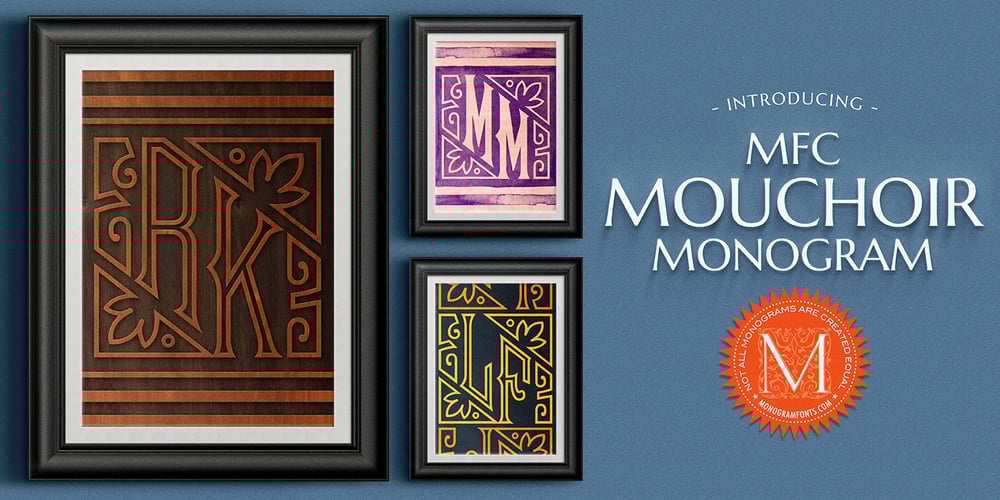
MFC Mouchoir Monogram
MFC Mouchoir Monogram font
MFC Mouchoir Monogram Font Family was designed by Brian J. Bonislawsky and published by Monogram Fonts Co.. MFC Mouchoir Monogram contains 18 styles and family package options. The inspiration source for Mouchoir Monogram is an ornament framed letterstyle from a vintage embroidery publication. It was originally intended to adorn handkerchiefs, so it is aptly named “Mouchoir”, or handkerchief in French. Many monogram designs from the early 1900s seem to fall into a two letter format which is either adorned or interwoven with framing styles. Mouchoir Monogram is only capable of two letter monograms due to its unique design. It was originally designed to have outlined initials, but solid and outline versions have been created for more versatility and appeal. Download and view the Mouchoir Monogram Guidebook if you would like to learn a little more. There is a guidebook for both the Pro and Standard fonts included in the font package. Mouchoir Monogram comes complete with both Pro and Standard format fonts. For those with programs that can take advantage of OpenType features, the Pro fonts are for you, but for others without the ability to use OpenType features, we’ve created separate fonts that make up the styles contained in the Pro font.